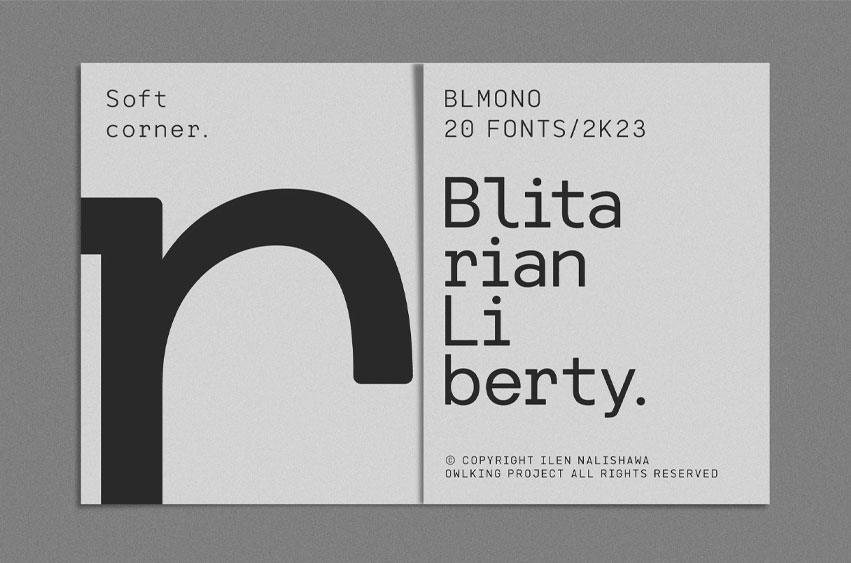
Blitarian Liberty Font
Blitarian Liberty Font is a unique font with 20 weight sizes including italics, Here’s a stylized version with curved corner shapes for each letter.
Blitarian Liberty is still a monospace font style, perfect for posters with short titles and paragraphs. Anything about a modern, hi tech style can be built and adapted to Blitarian Liberty as it has easy options to explore the many styles in the font family.